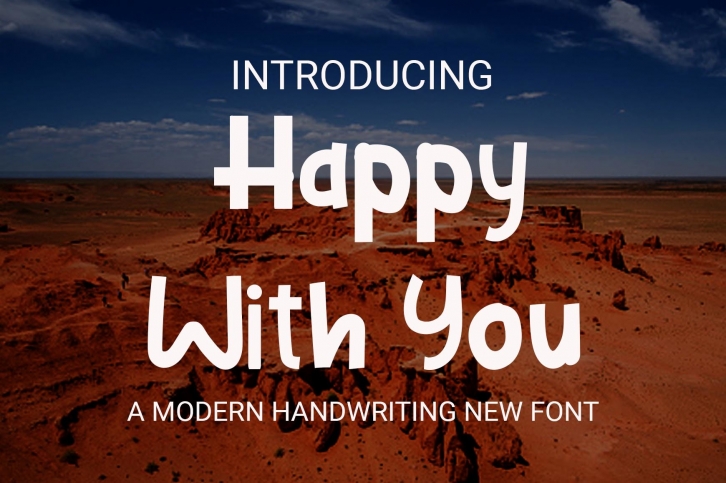
Happy With You Font is a cute and casual display font. Black Swag will look outstanding in any context, whether you’re looking for fonts for Instagram or calligraphy scripts for DIY projects, this font will turn any creative idea into a true piece of art!
Happy With You Font can be used for various purposes such as logos, headings, t-shirts, letterhead, signage, labels, news, posters, badges and so much more.